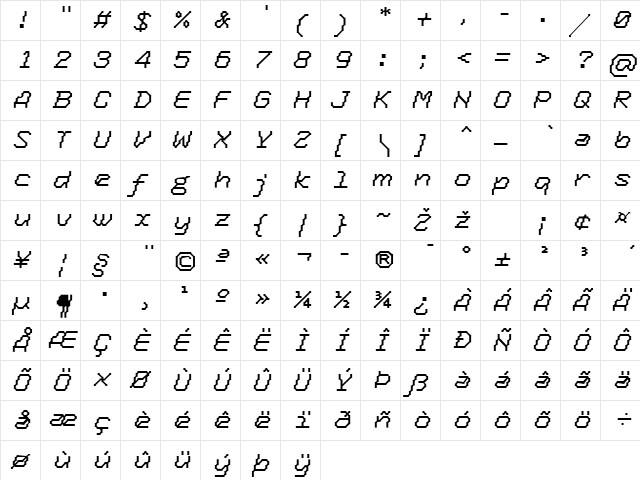
TronicLF-RegularItalic Regular
| Foundry | Hyun Cho, Sung Min Choi; published by FontShop International for the FontFont Library |
| Designer | Hyun Cho, Sung Min Choi |
Design Context for TronicLF-RegularItalic Typeface
TronicLF-RegularItalic is a composed and adaptable typeface that performs quietly and consistently across a wide range of design contexts. The slanted form adds forward momentum and visual energy.